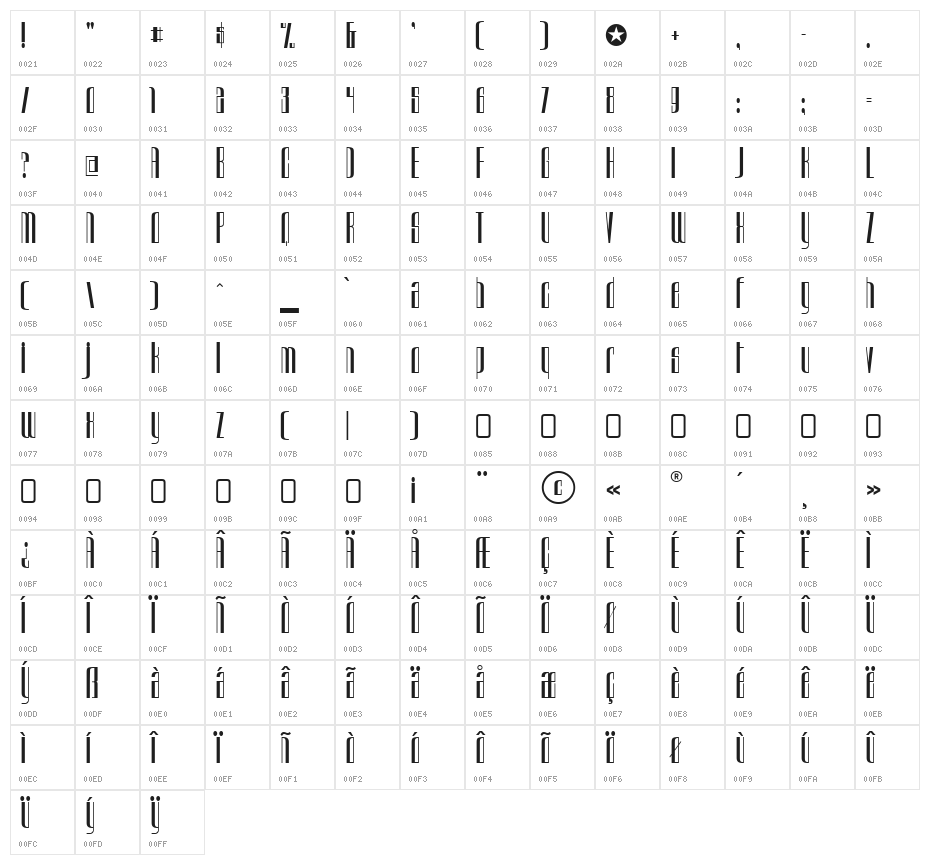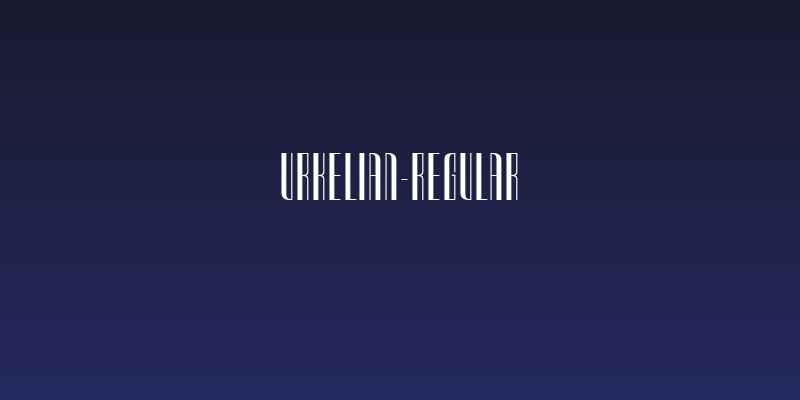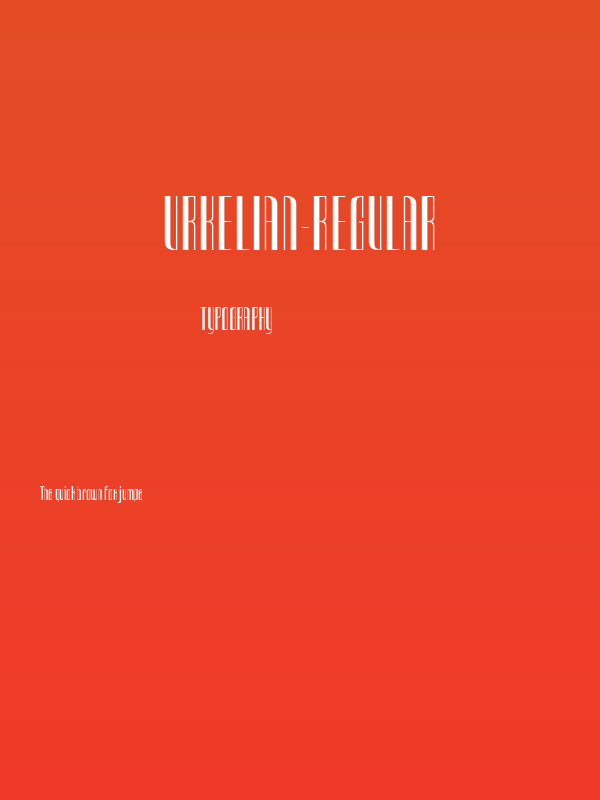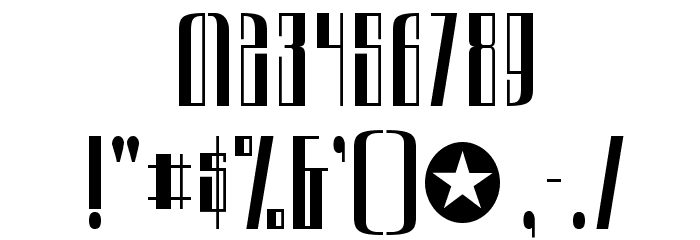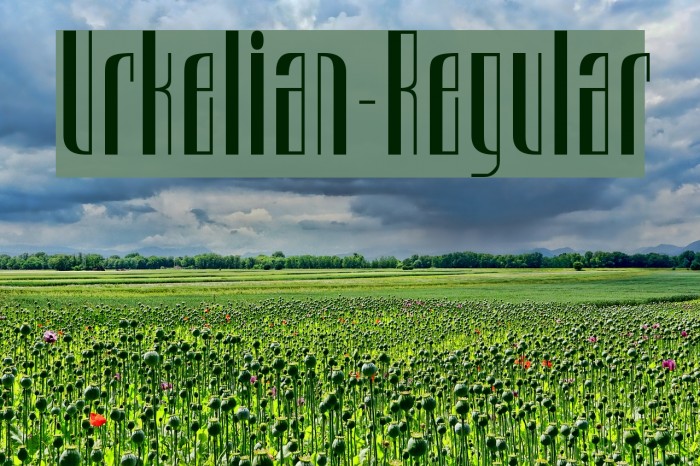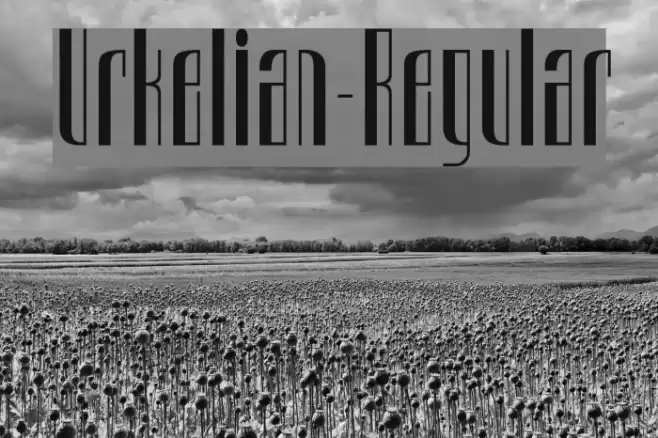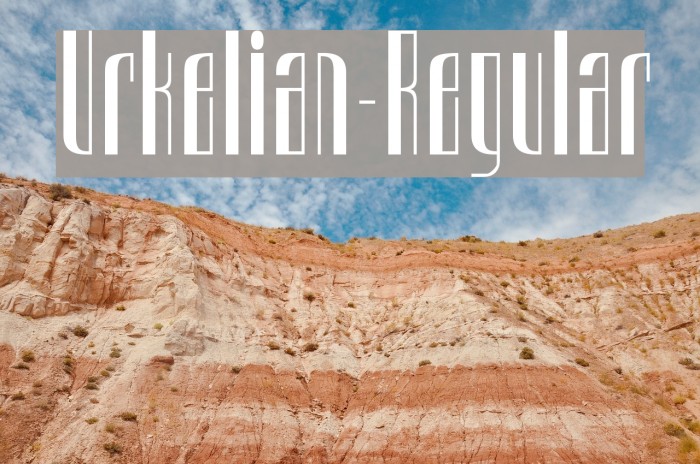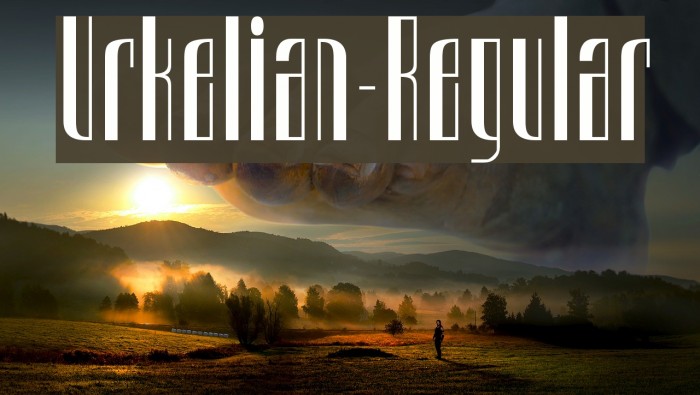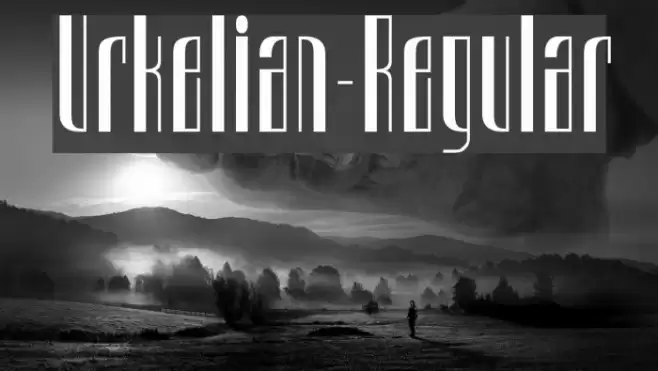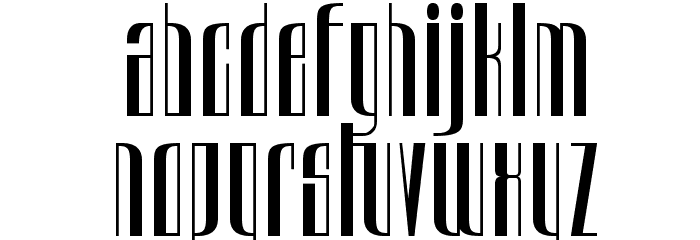
Urkelian-Regular Font
Urkelian-Regular Description
This font features a striking and elongated design with tall, narrow characters that create a dramatic and modern appearance. The uppercase letters are particularly elongated, giving a sense of height and elegance. The lowercase letters maintain this tall structure, ensuring consistency across the typeface. The numbers and special characters follow the same design principles, with a unique flair that adds to the font's distinctiveness. The overall look is sleek and sophisticated, making it suitable for projects that require a bold statement.
| Proposed Projects | Ideal for fashion magazines, luxury branding, modern posters, and high-end product packaging. |